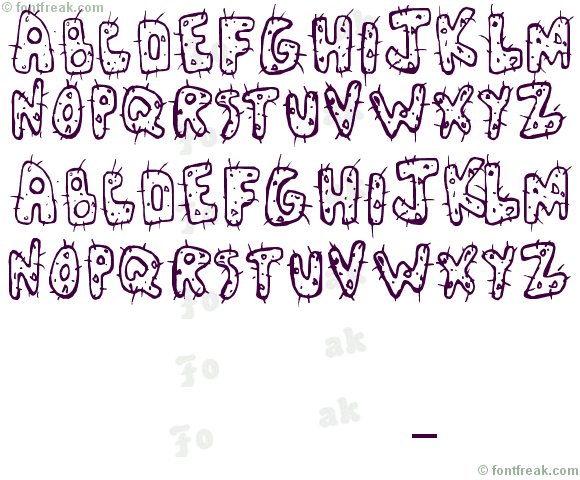
Cactus Love
About Cactus Love
Cactus Love by Spork Thug Typography is a delightful decorative font that captures a whimsical yet playful essence. This font is characterized by its unique, organic shapes that resemble the contours of cacti, infused with a sense of love and warmth. The strokes are uneven and slightly irregular, giving it a hand-drawn quality that adds charm and character. The contrast in stroke weight is subtle, contributing to a friendly appearance that feels inviting and approachable. The spacing between letters is generous, which enhances readability while still maintaining a distinctive style.
Ideal for various creative projects, Cactus Love shines in several specific use cases. Its playful design makes it perfect for wedding invitations, where it can convey a sense of joy and celebration. Additionally, it works wonderfully for restaurant menus, especially those with a casual or themed vibe, where it can evoke a fun dining experience. The font is also suitable for greeting cards, where its love-infused theme can resonate with heartfelt messages. Furthermore, it can be effectively utilized in social media graphics, helping content creators capture attention with its eye-catching aesthetics.
Targeting graphic designers, small business owners, and content creators, Cactus Love offers a unique option for those looking to infuse personality into their designs. The font's versatility allows it to be adapted to various branding and marketing materials, making it an essential addition to any designer's toolkit.